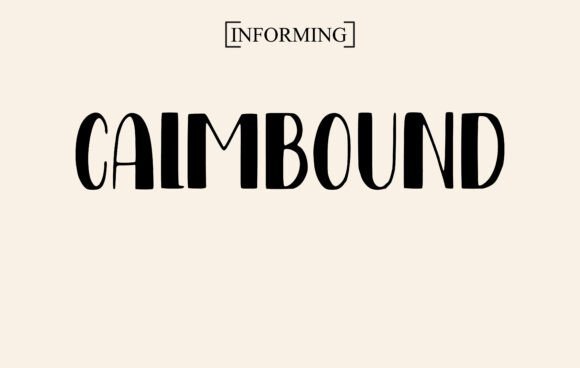
Have you ever stared at a blank page, waiting for inspiration to strike? The blank page stares back, taunting you with its emptiness. But then, it happens – a spark of creativity ignites, and your ideas begin to flow. This is the moment when the right tools can make all the difference.
Enter the Calmbound Font, designed to be the perfect partner for your creative endeavors. This versatile font is not only legible but also visually appealing, making it ideal for a wide range of designs, from magazine headlines to wedding invitations. For designers, the Calmbound Font is a valuable asset, offering a fresh and modern look that can elevate your projects to the next level.
Calmbound Font Key Features
- Font Family: Calmbound Font is a modern sans-serif font family designed for digital use, available in multiple weights.
- Size and Resolution: Calmbound Font is designed to work well at various sizes, with optimal results at 24px and above, at a resolution of 72 dpi or higher.
- Unique Characteristics: The font features a clean, rounded design with subtle flair on the ends of the strokes, giving it a friendly and approachable feel.
- Language Support: Calmbound Font includes a wide range of language support, including Latin, Greek, and Cyrillic scripts, making it suitable for global applications.
Calmbound Font Review
As a designer, I was excited to dive into the world of Calmbound Font, but after a thorough review, I have mixed feelings about this font family.
- Clean and Modern Aesthetics: Calmbound Font boasts a sleek and modern design that would suit a wide range of applications, from digital products to print materials.
- Consistency Across Weights: The font family maintains its clean and modern feel across different weights, making it easy to use for both body text and headlines.
- High-Quality Glyphs: The font’s glyphs are well-crafted and smooth, ensuring a professional look in various contexts.
Limitsations ⚠️
- Lack of Distinctiveness: While Calmbound Font is clean and modern, it may not stand out in crowded design spaces where uniqueness is key.
- Not Ideal for Body Text: Due to its clean and minimalist design, Calmbound Font may not be the best choice for large blocks of body text, where readability is crucial.
Overall, I think Calmbound Font is a solid choice for designers who want a clean and modern font family. However, its limitations should be considered before making a final decision.
Calmbound Font: A Practical Application Guide
Calmbound Font is perfect for creating calming and soothing designs, making it ideal for wellness and self-care-related projects.
Calmbound Font is a great choice for creating professional-looking designs, such as logos, business cards, and brochures.
Calmbound Font is perfect for creating presentations, reports, and documents that require a calm and professional tone.
Calmbound Font is ideal for:
- Wellness and self-care-related projects
- Professional-looking designs, such as logos and business cards
- Presentations, reports, and documents that
Alternatives to Calmbound Font
Compared to Calmbound Font, Lato has a more modern and sleek design. While Calmbound Font has a more rounded and friendly feel, Lato is more angular and geometric. Lato is also more versatile and can be used in a wider range of applications.
Open Sans is a popular sans-serif font designed by Steve Matteson. It is a highly legible font that is ideal for use in digital media, such as websites, mobile apps, and e-books. Open Sans has a clean and neutral design, making it perfect for modern designs and branding.
Compared to Calmbound Font, Open Sans has a more neutral and less rounded design. While Calmbound Font has a more distinctive and friendly feel, Open Sans is more understated and versatile. Open Sans is also more widely used and supported by many devices and platforms.